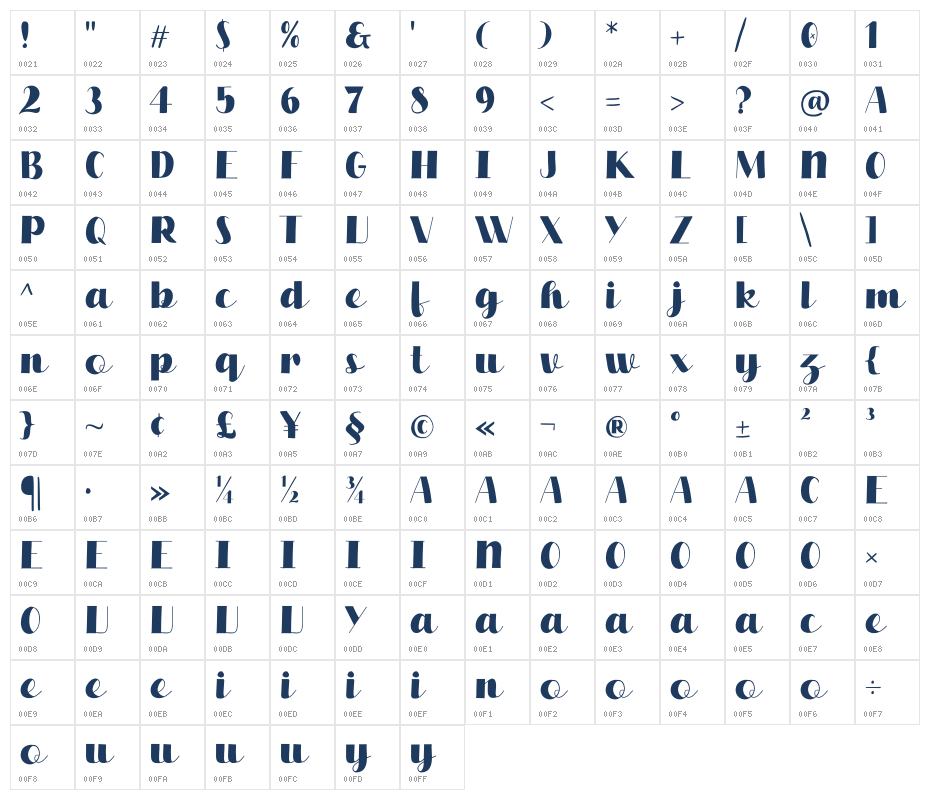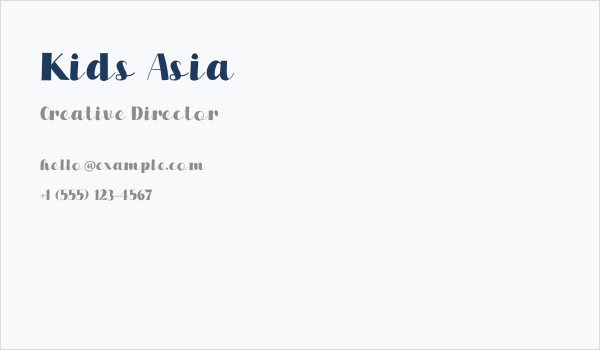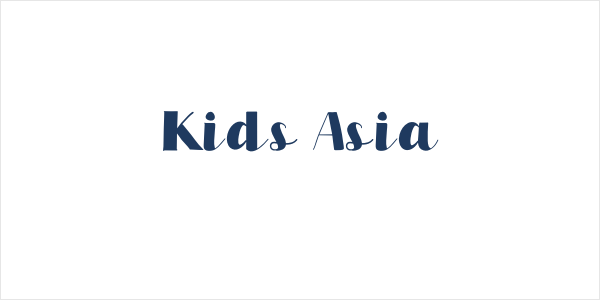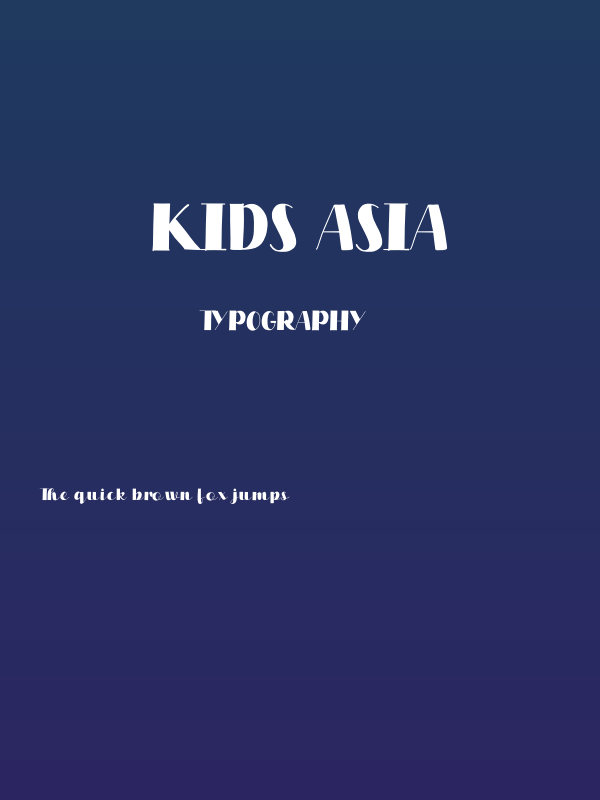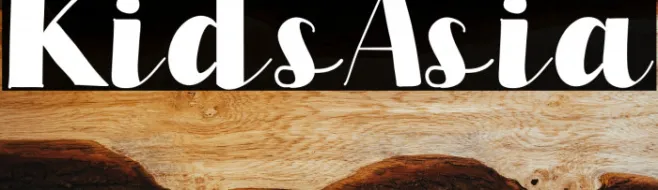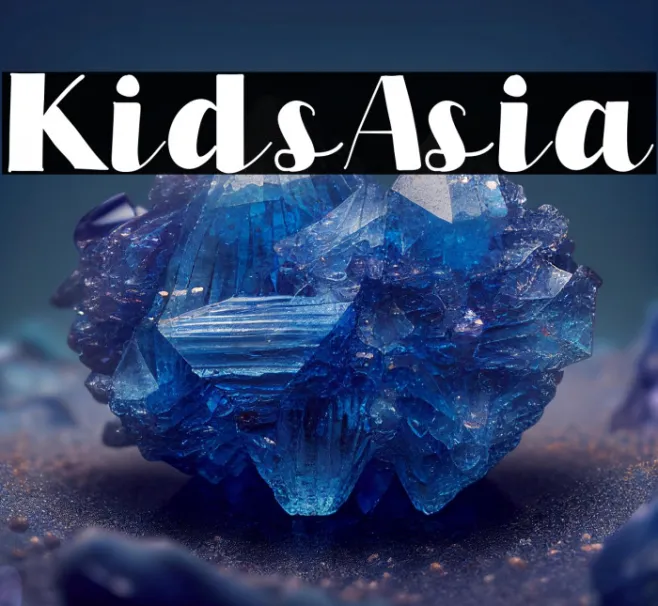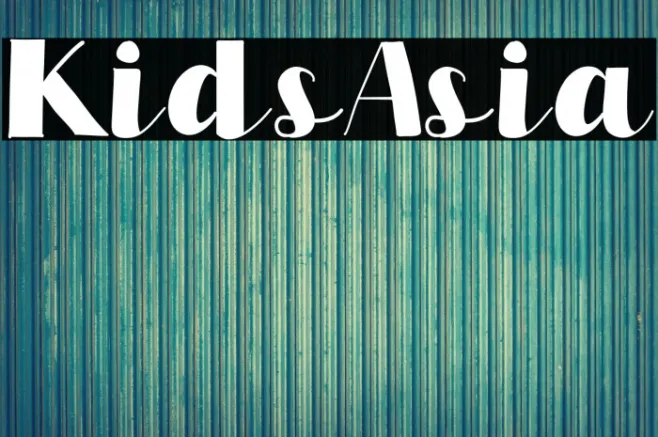
Kids Asia Font
Kids Asia Description
A playful, bold script font with a vintage feel, featuring thick and thin strokes with a slight slant and decorative elements.
| Overall Style | Vintage, Playful, Decorative |
| Use Case | Logos, Headlines, Packaging, Invitations |